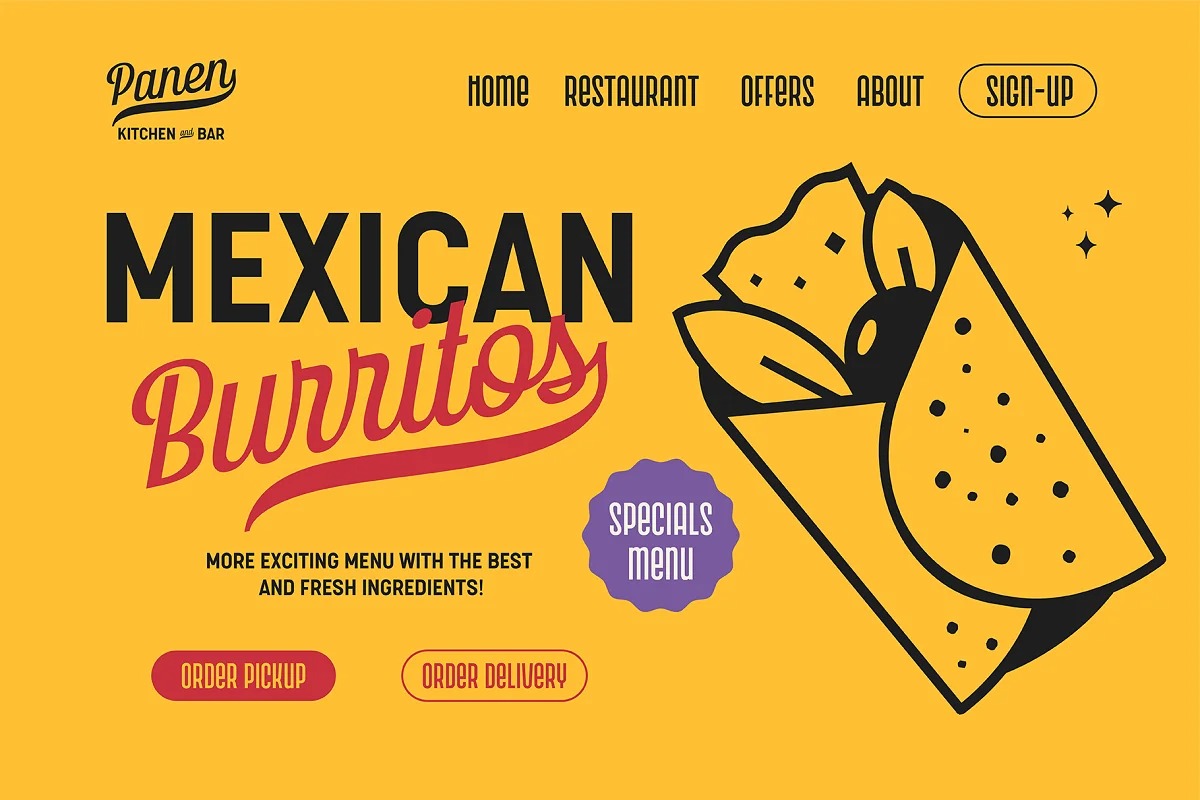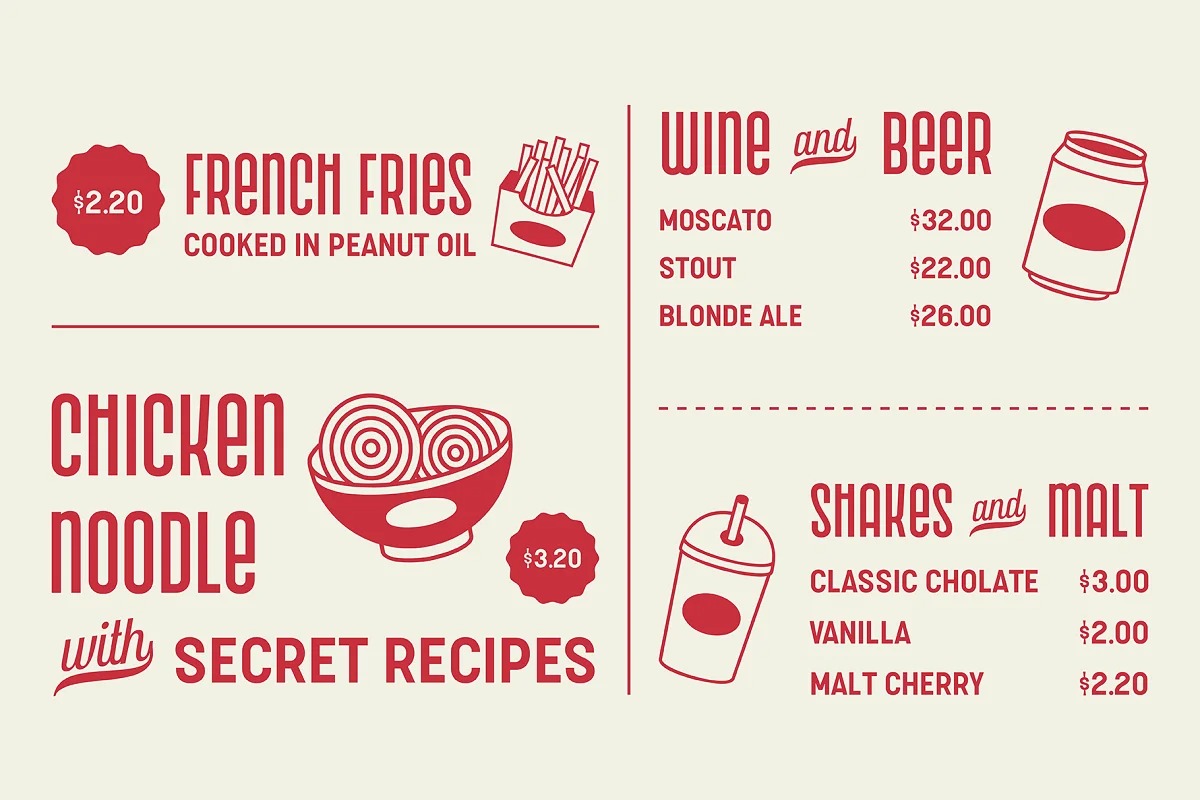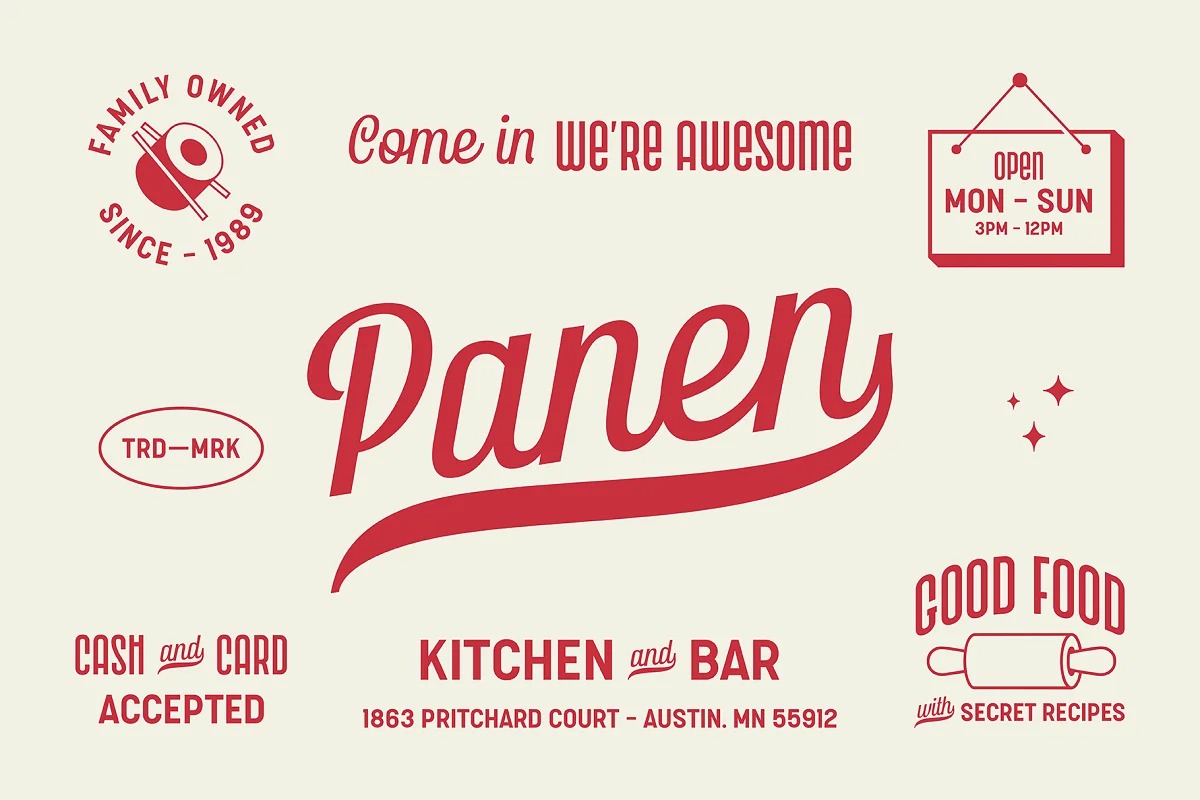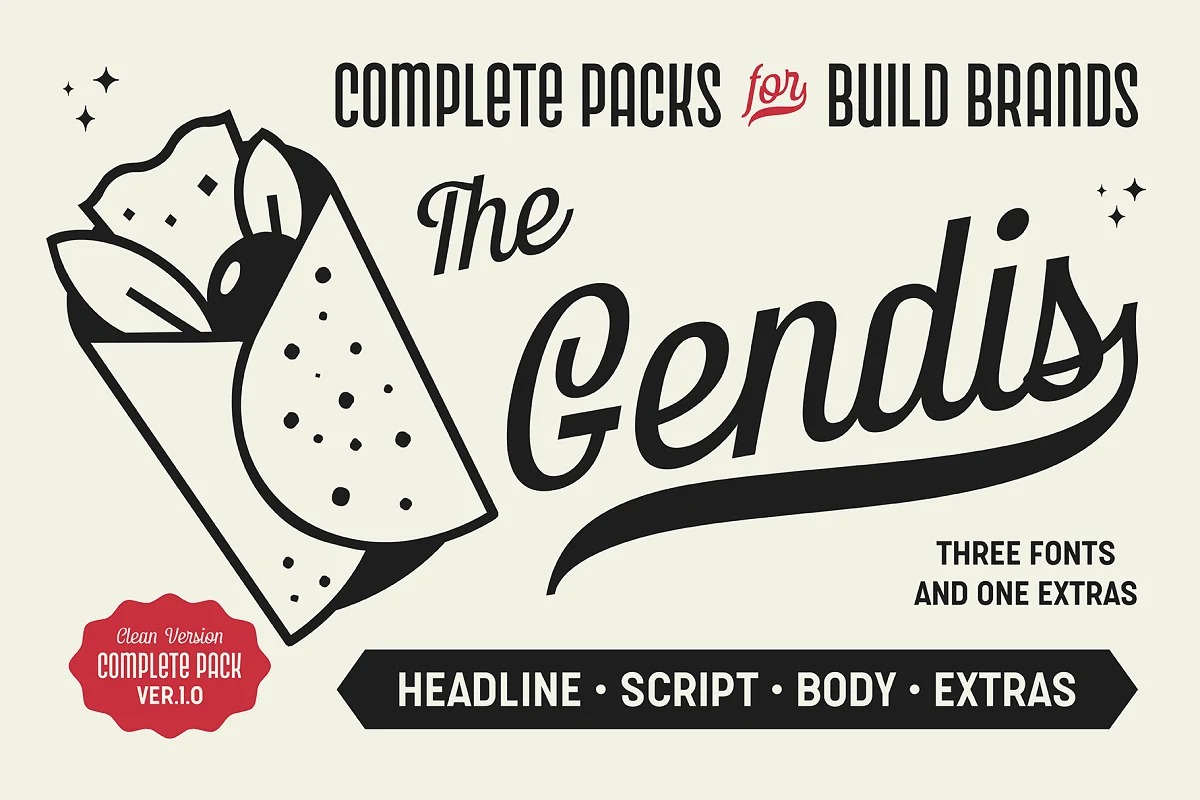
Gendis Font
Gendis Script Font
This font is a new fresh & modern script with a handmade calligraphy style, decorative characters and a dancing baseline! Gendis is a complete fonts pack for build brands, comes in three different styles and extras. This complete package is perfectly for all your creative work such as branding projects, packaging design, ads and more.